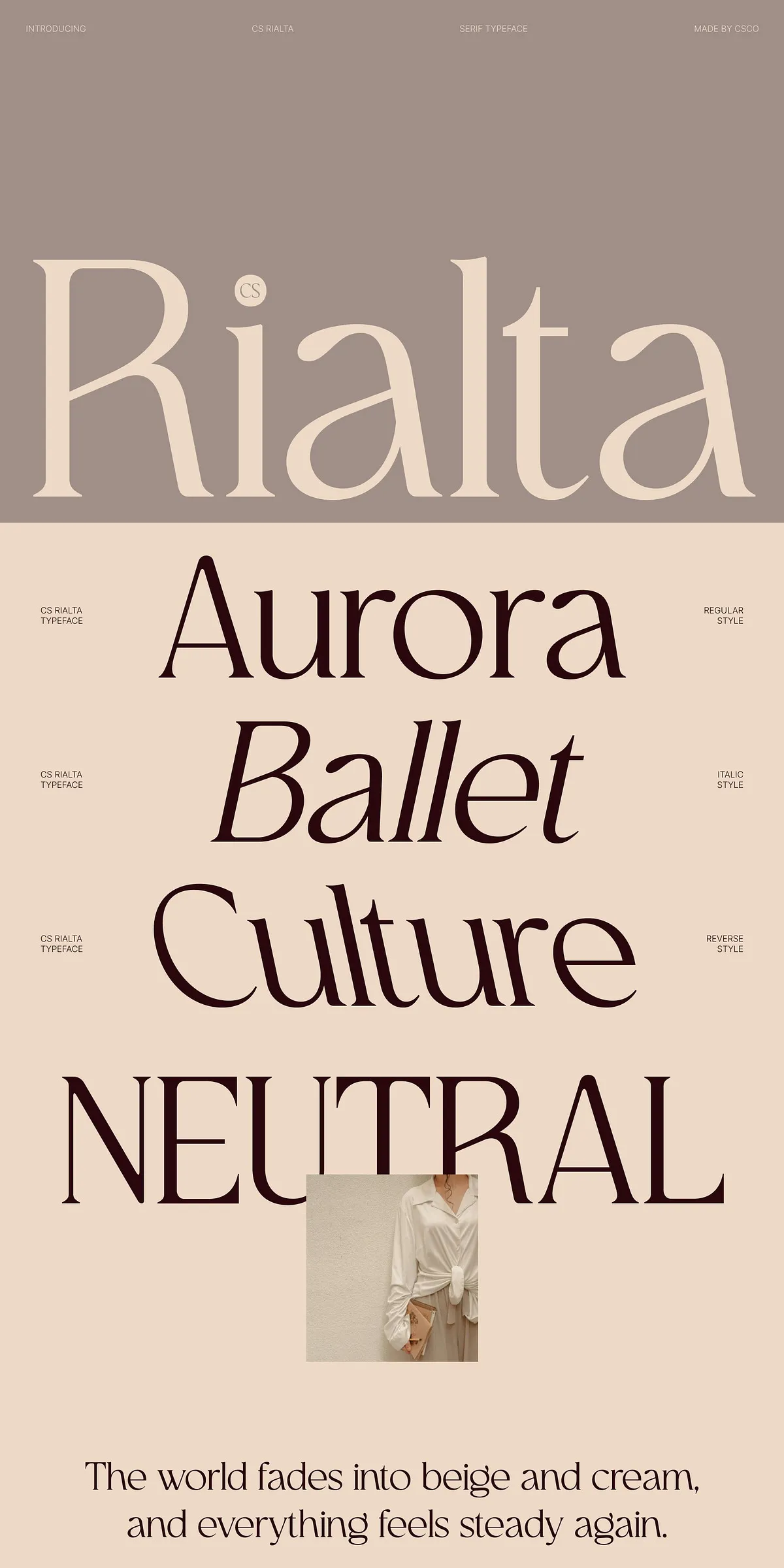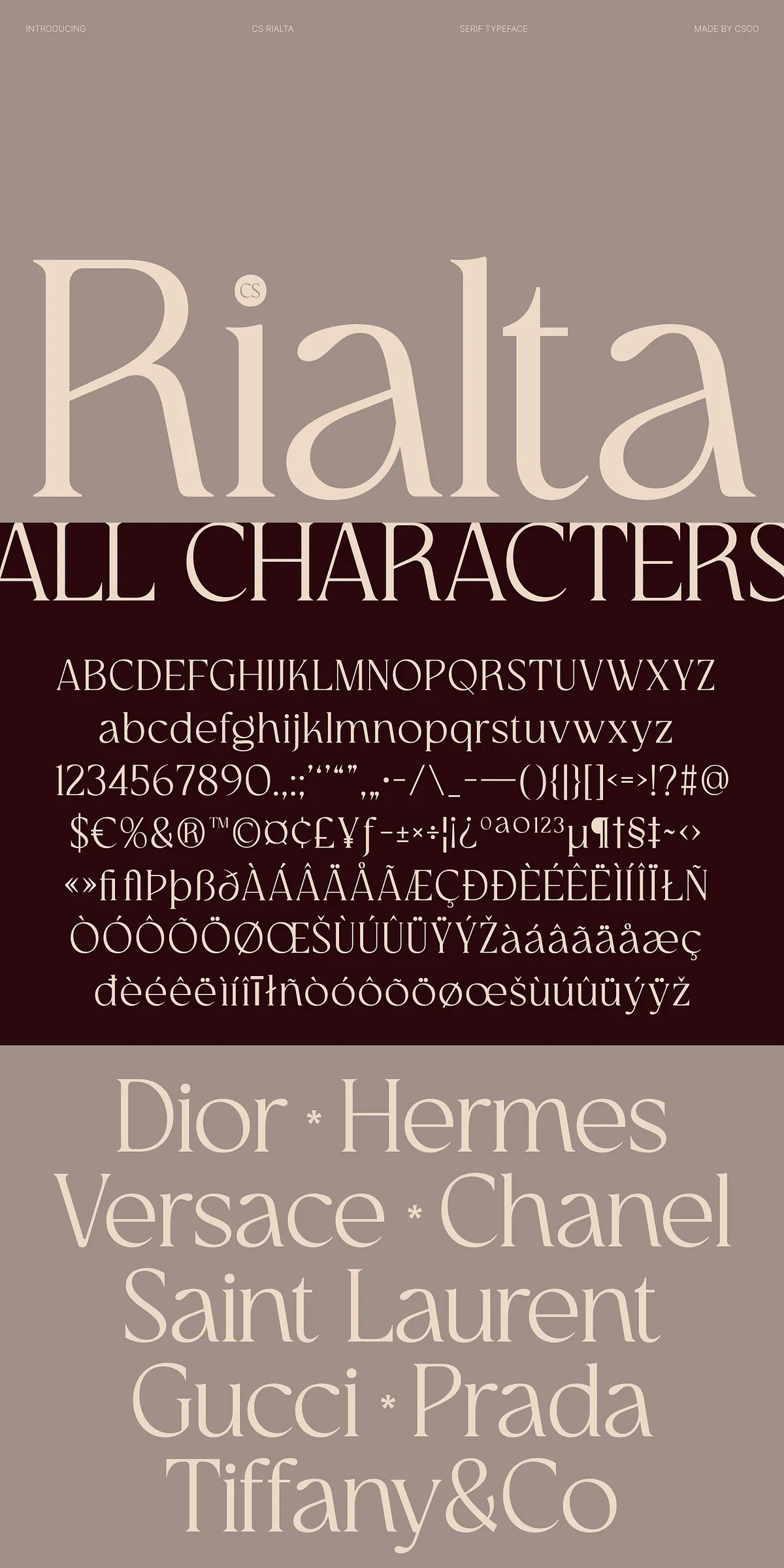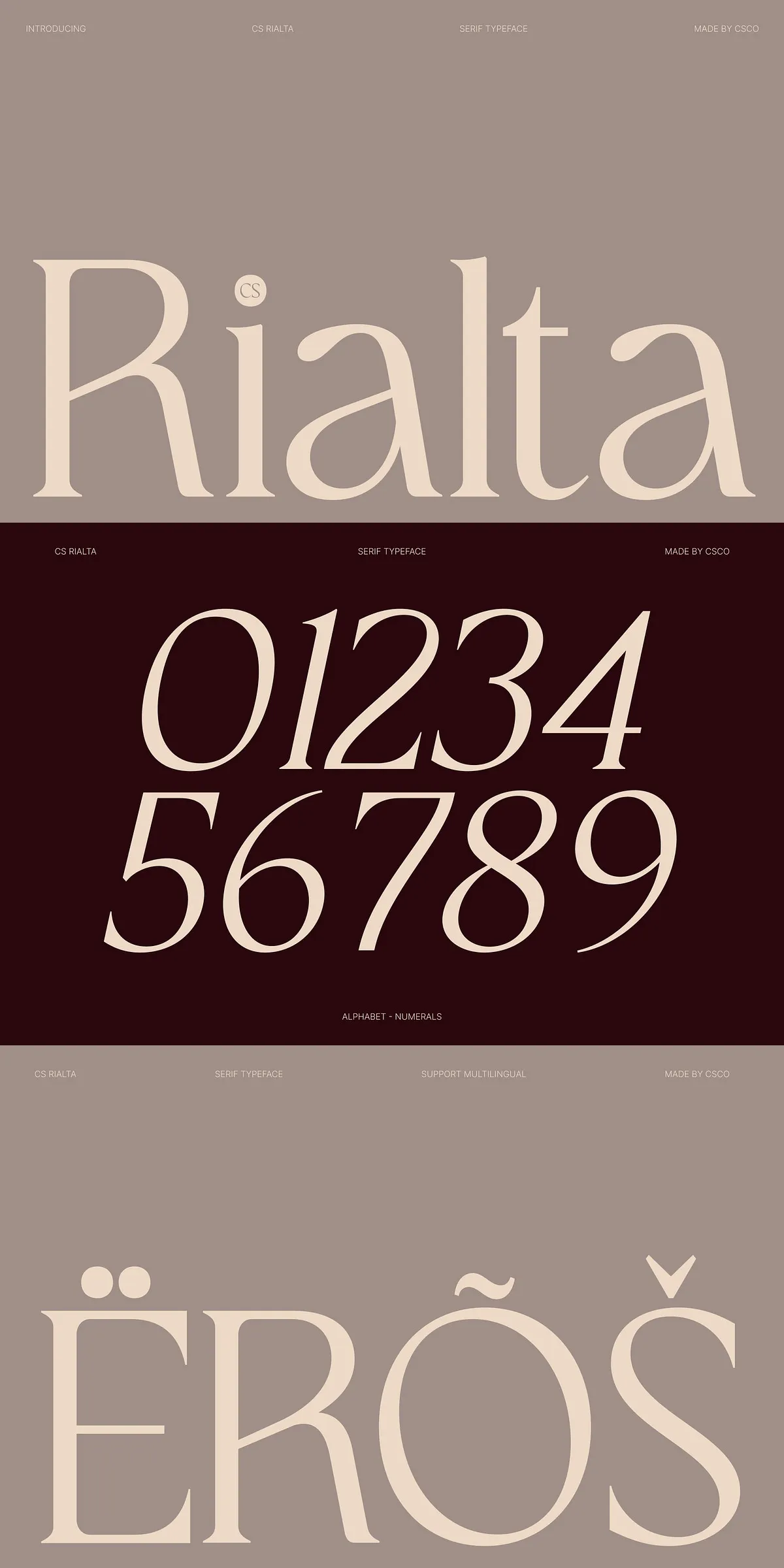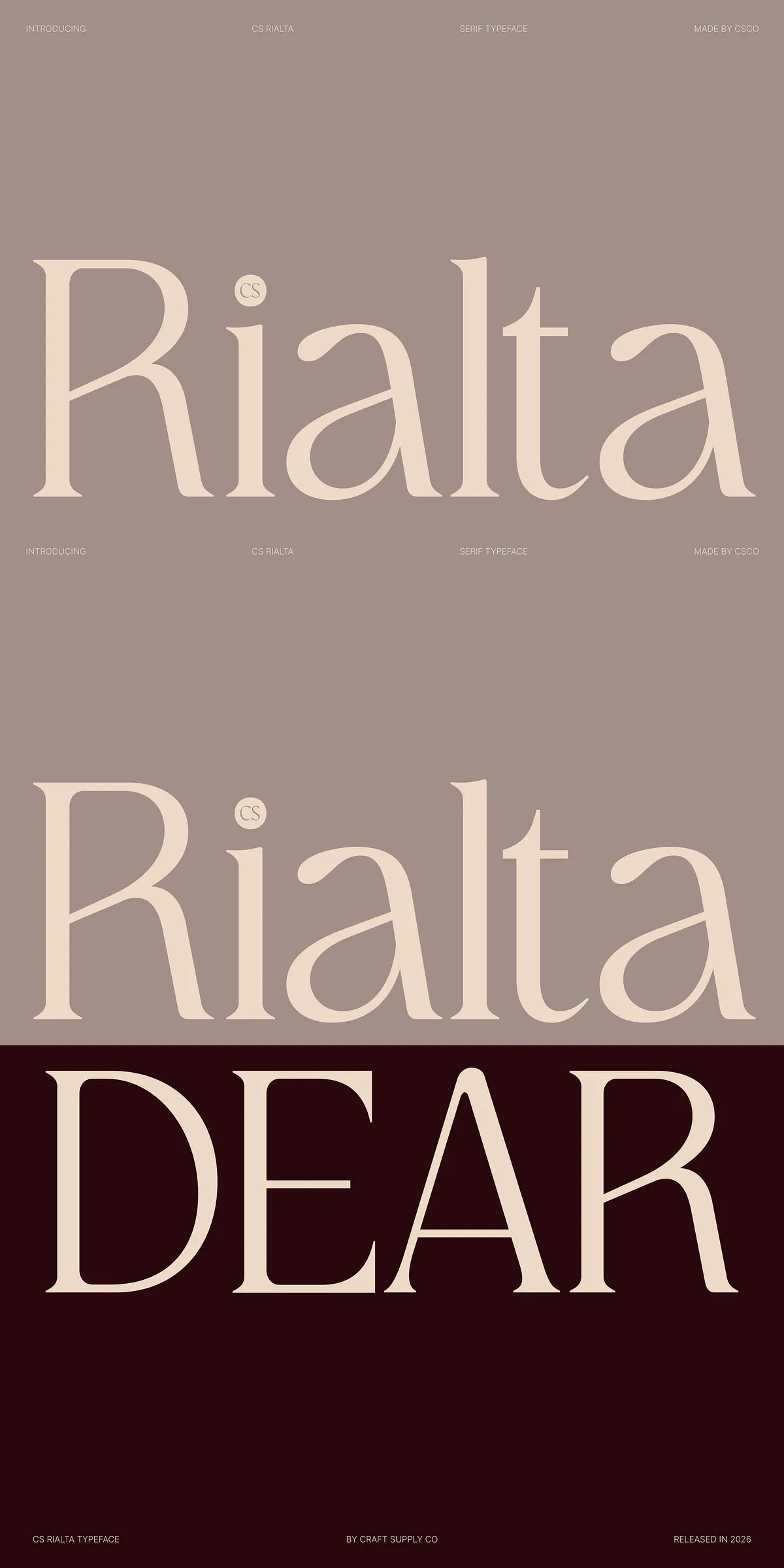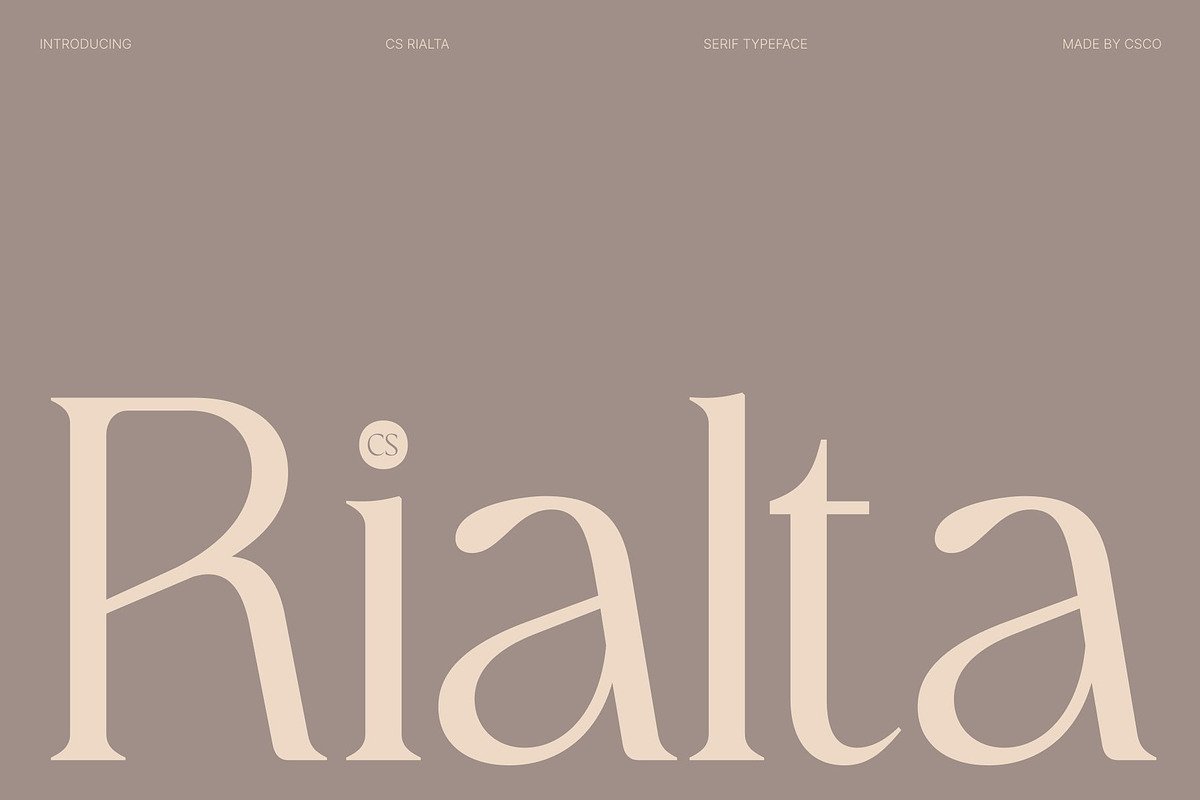
Rialta – Elegant Serif Font
Introduce CS Rialta to your design toolkit and elevate your visual communication with a typeface that perfectly balances timeless elegance and contemporary clarity. This modern serif font is crafted to convey professionalism, refined taste, and enduring style. Its gracefully proportioned letterforms and carefully structured design offer a typographic voice that feels both classic and distinctly current. Whether you are building a brand identity from scratch or seeking a polished voice for an established brand, CS Rialta provides the sophistication your project deserves. The thoughtful detailing in every character ensures that your designs communicate authority, trust, and high-end quality without effort.
Timeless letterforms with contemporary precision
The construction of CS Rialta is rooted in the belief that great typography should be both beautiful and functional. Each letterform is meticulously crafted to deliver clarity and confidence. Clean lines intersect with balanced serifs to create a harmonious rhythm that guides the eye effortlessly across the page. This refined construction enhances readability while maintaining an elegant presence that commands attention. The subtle contrast between thick and thin strokes adds visual interest without compromising legibility, making CS Rialta equally effective in large display sizes and extended body text. Designers can rely on this typeface to maintain consistency and professional polish across every scale.
Elegant presence for professional visual identity
CS Rialta brings an undeniable sense of authority and credibility to any project it touches. Its timeless aesthetic communicates trust, stability, and refinement, making it particularly well-suited for brands that wish to project reliability and high-end sophistication. The smooth curves and graceful visual flow of the letterforms enhance overall compositions without overwhelming the content. This balanced approach allows designers to create layouts that feel luxurious and considered, while still remaining accessible and easy to read. For corporate identities, luxury branding, and professional services, CS Rialta serves as a powerful typographic foundation that reinforces brand values through every word.
Versatile applications for diverse design needs
The adaptability of CS Rialta makes it an invaluable asset for a wide range of creative projects. Brand designers use it to craft cohesive identity systems that speak to modern audiences with classic charm. Editorial designers rely on its clarity and elegance to structure magazine spreads, newspaper layouts, and digital articles. Marketing professionals appreciate its ability to transform posters, brochures, and social media graphics into compelling visual statements. The font’s enduring appeal ensures that it works seamlessly across both traditional print media and contemporary digital platforms, allowing for consistent brand expression regardless of the medium.
Complete font package with multiple styles
CS Rialta offers a comprehensive typeface family designed to meet diverse typographic requirements. The package includes three distinct styles that work together to create dynamic visual hierarchy and typographic variety. Each style is carefully balanced to maintain the overall aesthetic integrity of the family while offering unique character and function. Designers can mix and match these styles to create emphasis, contrast, and visual interest in their compositions. The inclusion of italic and reverse italic variants provides additional tools for creating engaging layouts that stand out. Every character in the font family is designed to work harmoniously, ensuring a unified and professional look in every project.
Key features and technical specifications
• Complete character set including uppercase and lowercase alphabets for versatile text composition.
• Full numerals and punctuation marks following OpenType standard specifications for accurate data presentation.
• Extensive accent support with multilingual character sets enabling global projects and international publishing.
• PUA encoding included to provide access to additional glyphs and custom characters for specialized design needs.
• OpenType functionality ensuring compatibility with major design, publishing, and web development software.
When you download CS Rialta, you gain access to a complete typographic solution. The package includes CS Rialta Regular, a clean and versatile base style suitable for both display and body text. CS Rialta Italic offers a refined slanted counterpart that adds elegance and emphasis to your compositions. CS Rialta Reverse Italic provides a unique stylistic variant that breaks convention and draws attention to specific words or phrases. Together, these three styles form a cohesive family that empowers designers to create sophisticated, professional, and visually striking work. The font files are delivered in standard formats, ensuring instant compatibility with your existing design workflow.
Why CS Rialta is the ideal choice for modern designers
In a design landscape that constantly demands innovation, CS Rialta stands out by honoring typographic tradition while embracing modern aesthetics. Its clean lines and balanced proportions make it a reliable partner for designers who value both beauty and functionality. The typeface’s ability to convey professionalism and elegance makes it a preferred choice for luxury brands, corporate identities, and editorial publications. By choosing CS Rialta, designers invest in a typeface that enhances their work with timeless sophistication. Whether you are crafting a brand identity, designing an editorial layout, or creating marketing materials, CS Rialta delivers the clarity, elegance, and impact your project requires.